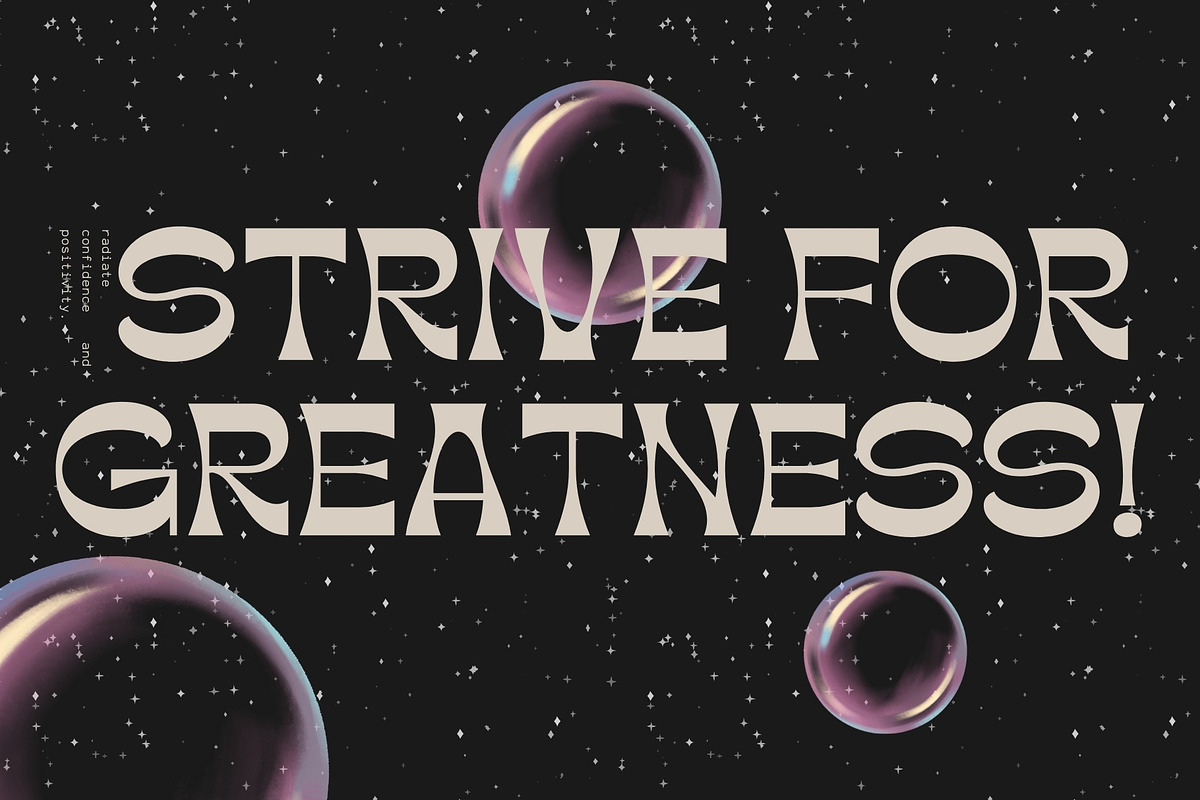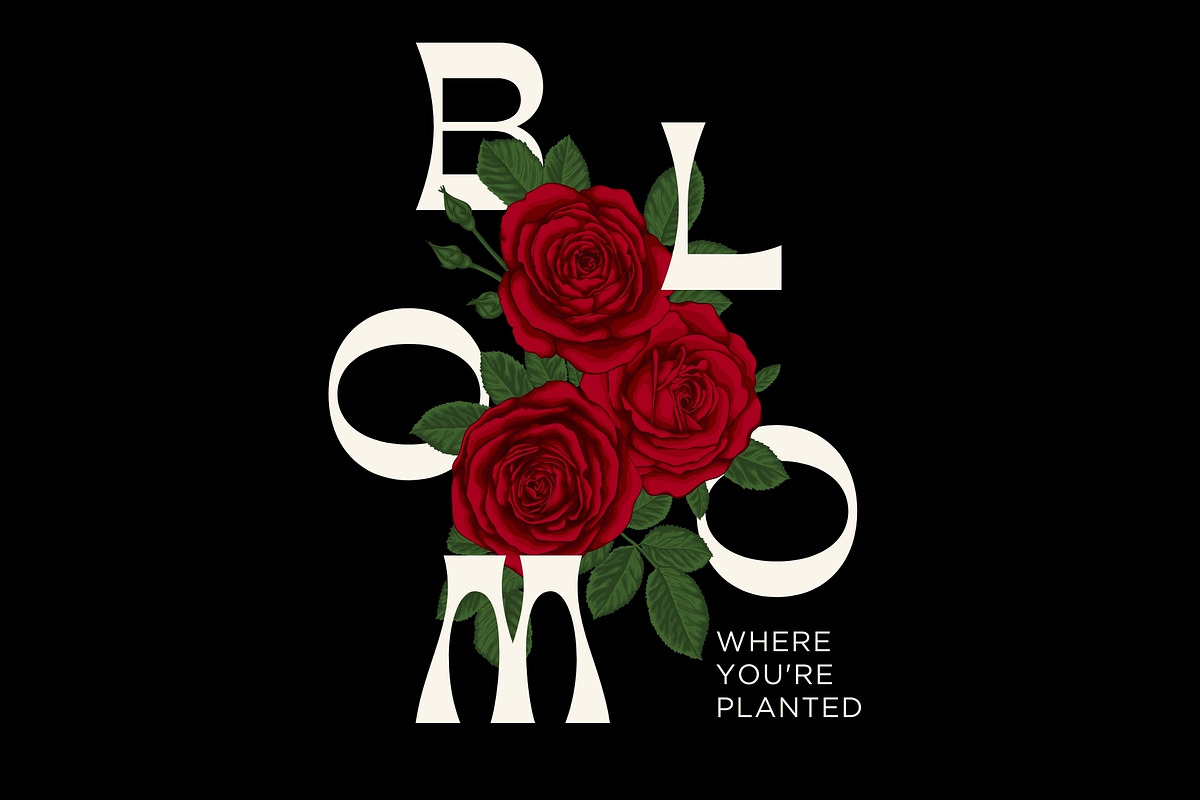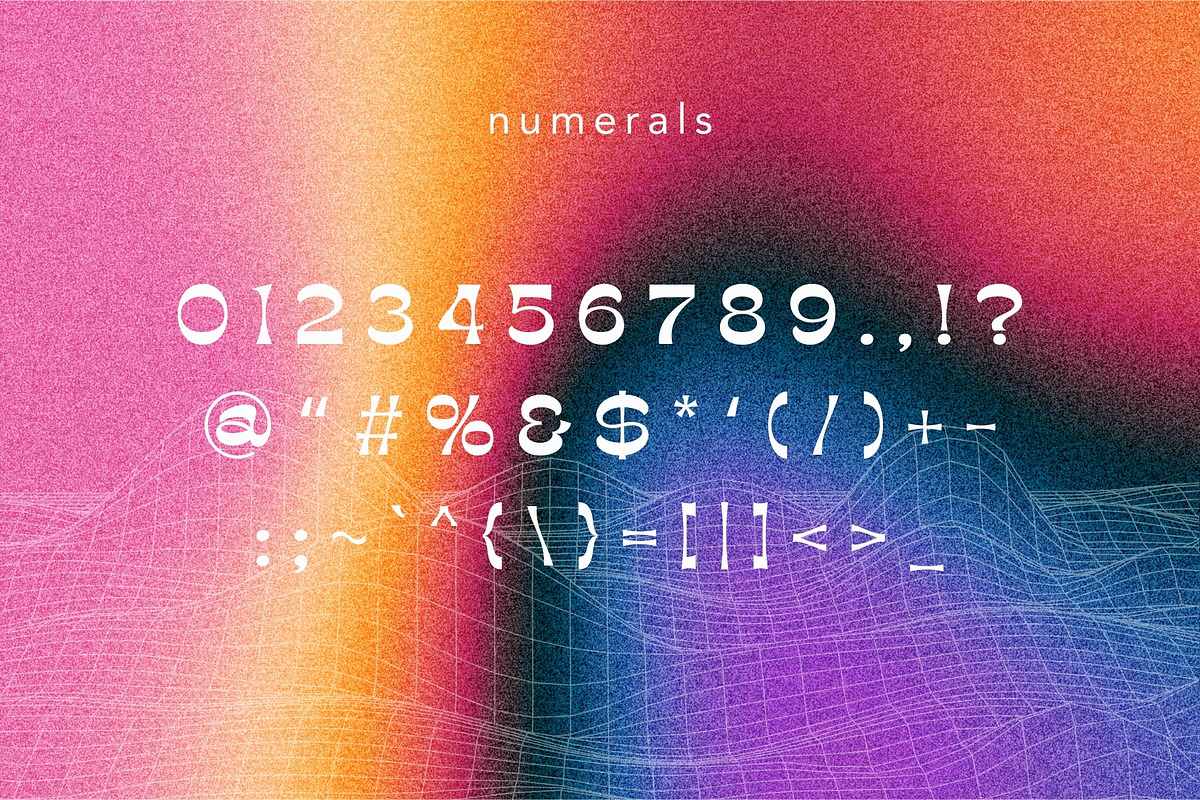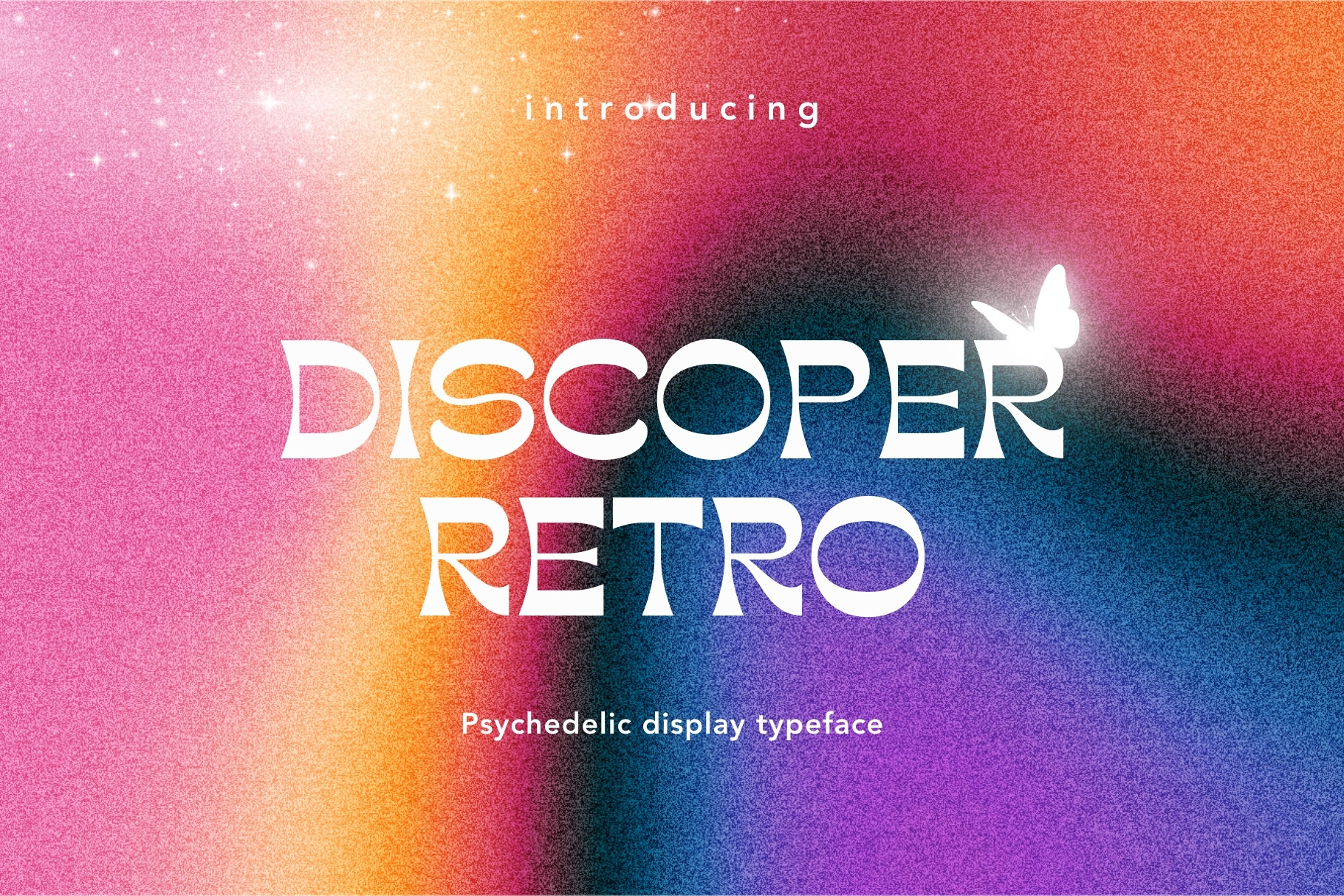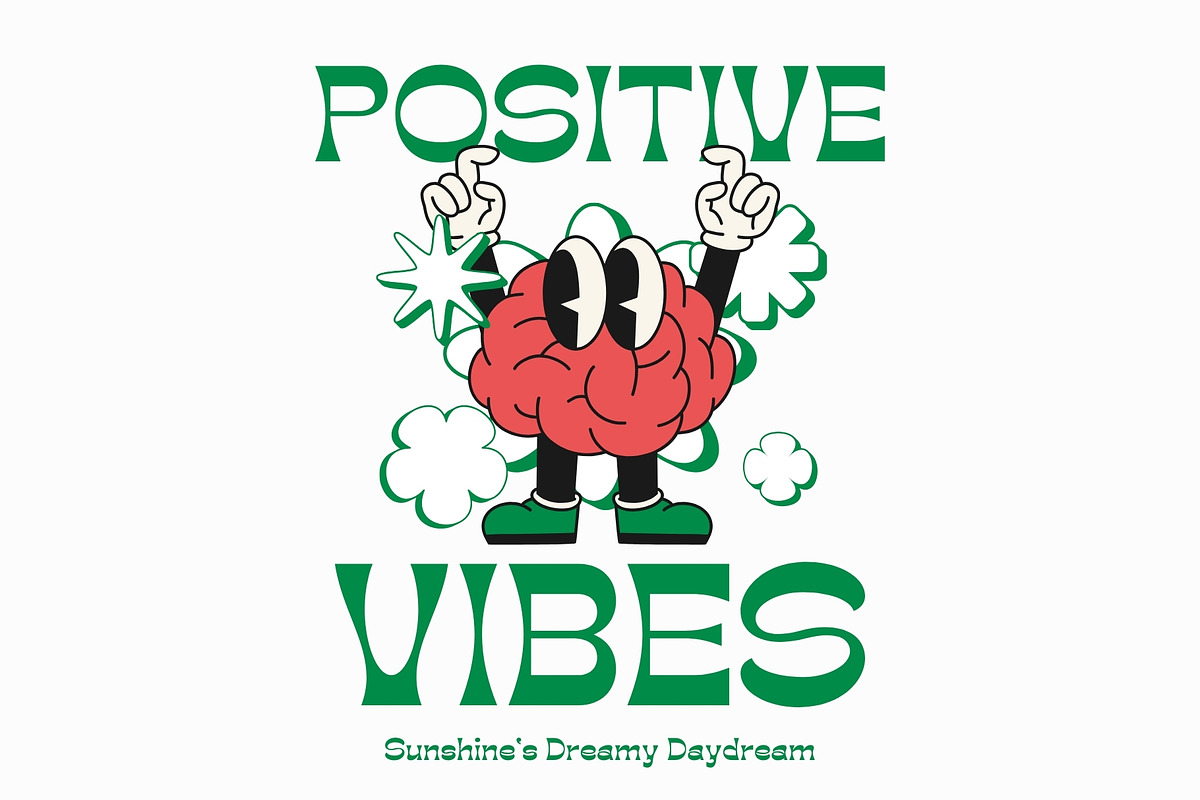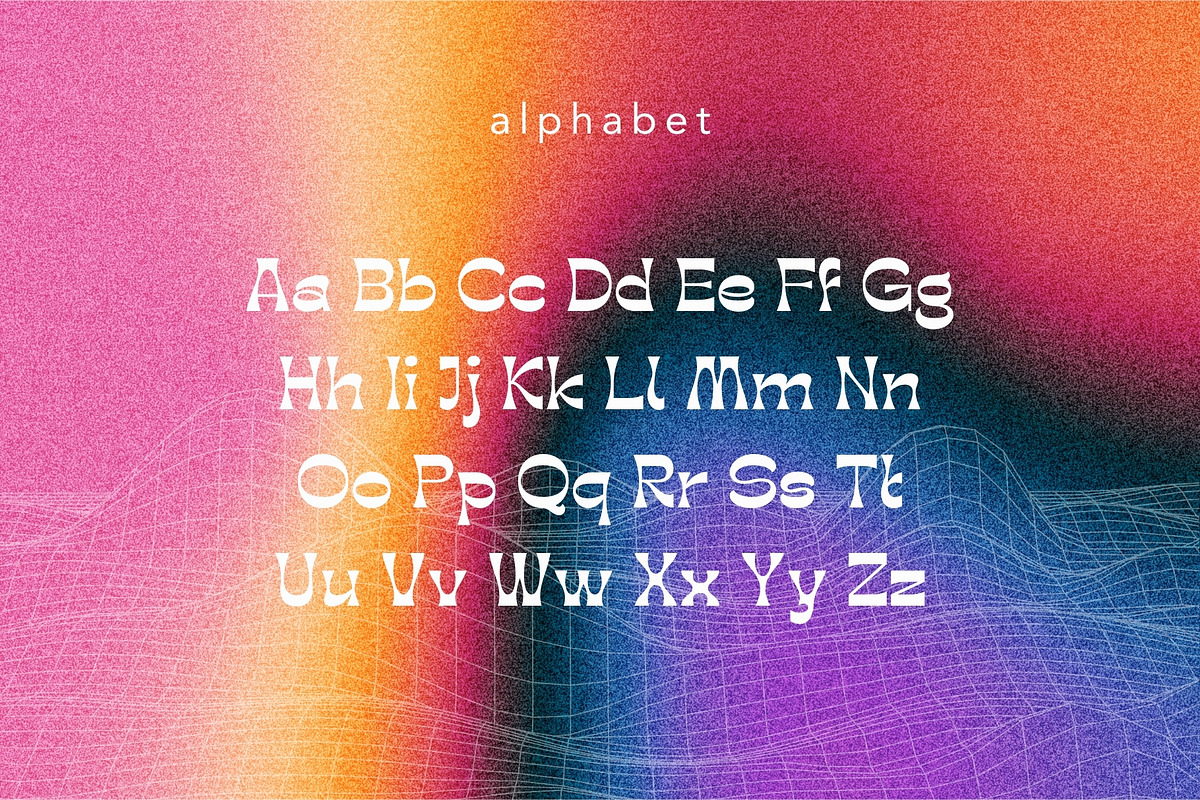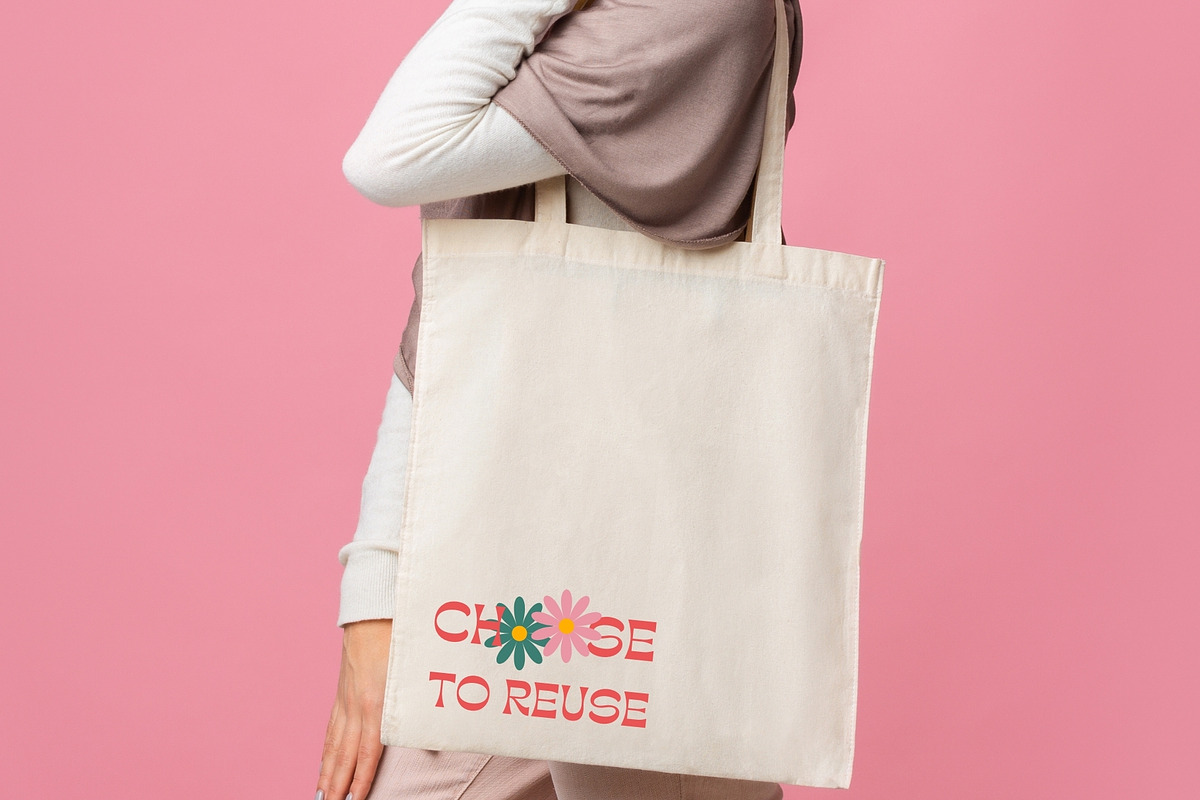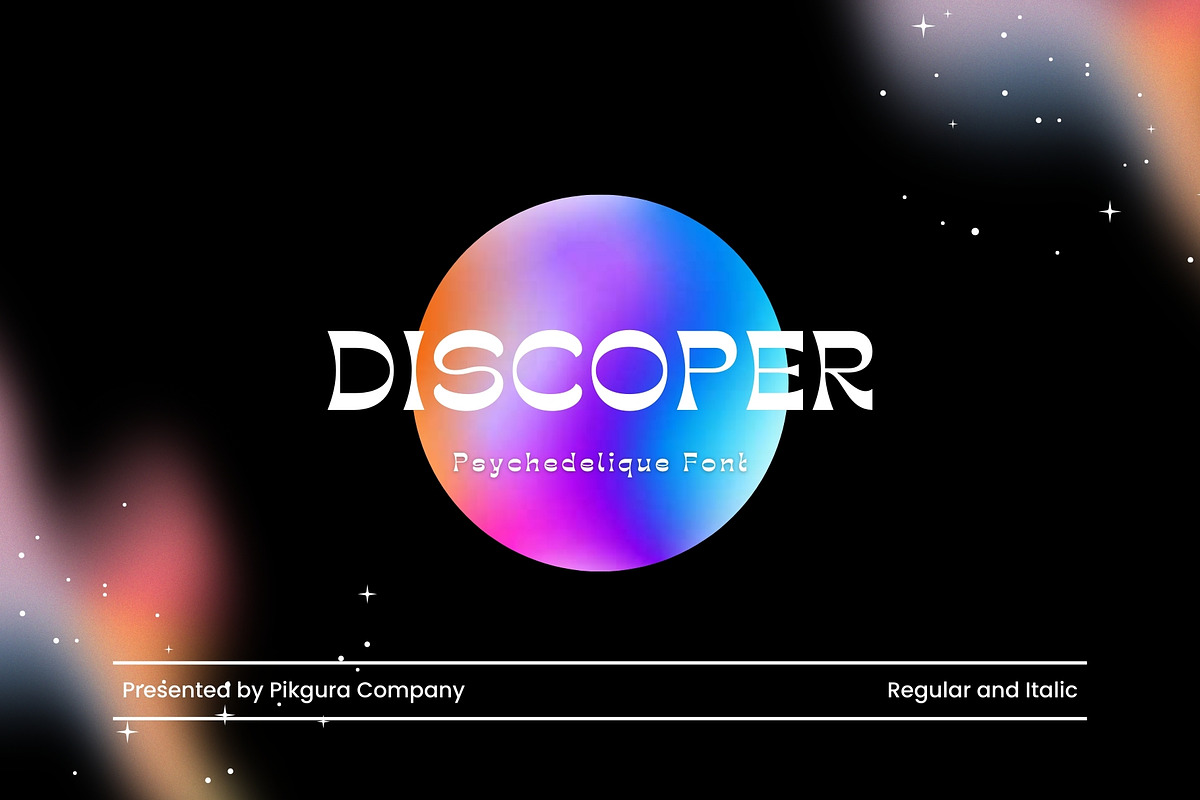
Discoper - Retro Psychedelic Font
Inspired by the mind-bending aesthetics of the 1960s, Discoper is a hand-crafted psychedelic font that brings a unique and quirky touch to any design. Whether you’re working on exhibition posters, merchandise, logo designs, or anything that needs that trippy vibe, Discoper delivers an instantly recognizable and unforgettable visual experience. Its funky and distorted letterforms are perfect for standing out in the world of bold, avant-garde design.
With uppercase and lowercase letters, numbers, and basic punctuation included, Discoper offers all the essentials to complete your creative project. Available in OTF, TTF, and WOFF formats, this font is fully equipped for use across all your favorite design software and platforms.